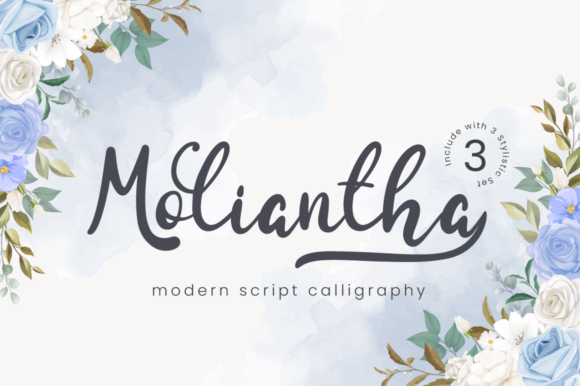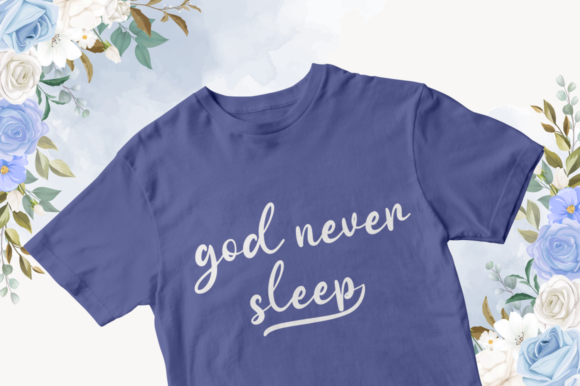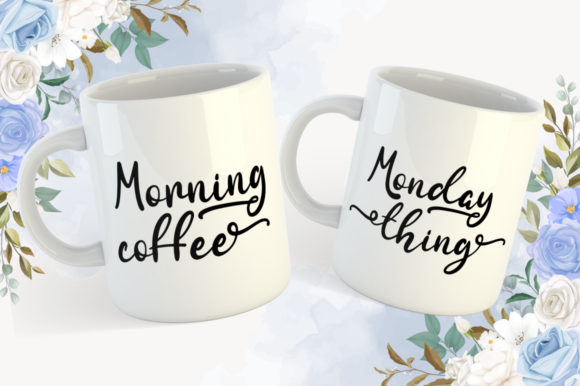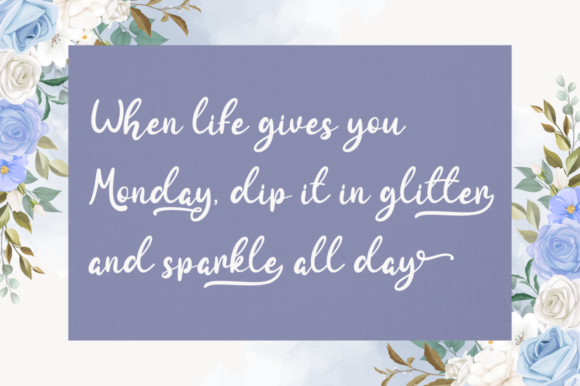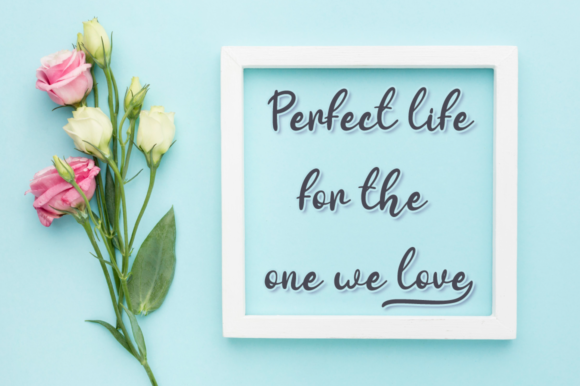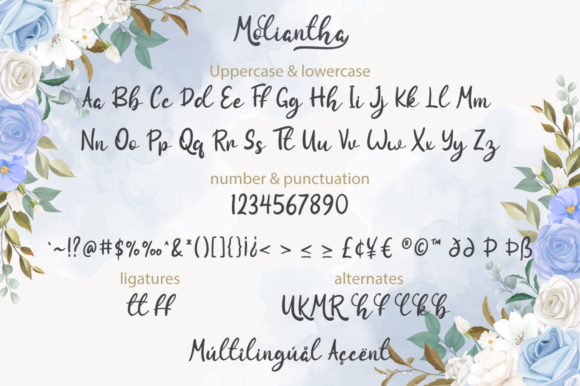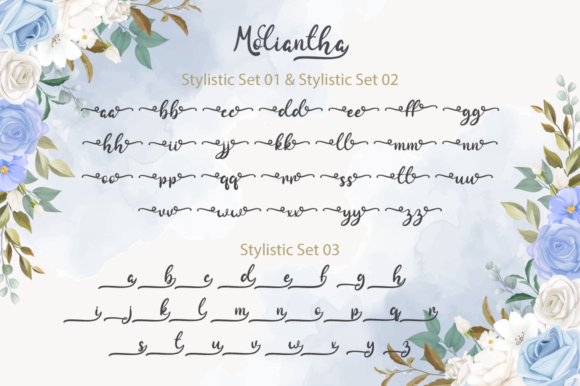
Moliantha Font
About Moliantha Font
Moliantha is a delicate and incredibly distinct handwritten font with 3 stylistic sets. Fall in love with its incredibly versatile style and use it to create romantic designs!